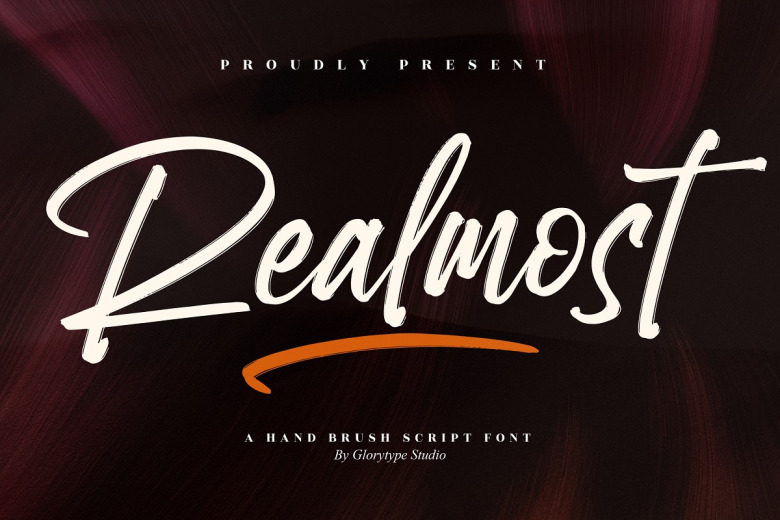
Realmost Font
Realmost – Hand Brush Script Font that is perfect for logos & branding, home or market product design, blog design, and all other design project, hope you guys love it. degined to combine perfectly and allow you to create stunning hand-lettering quickly and easily.
Realmost Brush Script Font